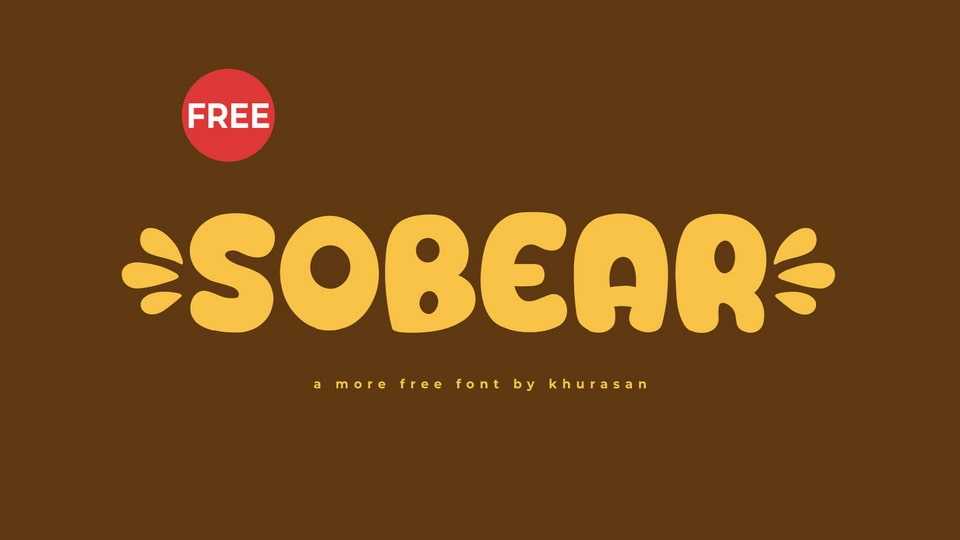
Download Sobear font, a playful and bold hand-lettered cartoon typeface that adds a delightful touch of cuteness to your creative projects. Sobear font is crafted with rounded edges and bold strokes to bring a lighthearted and friendly vibe to your designs.